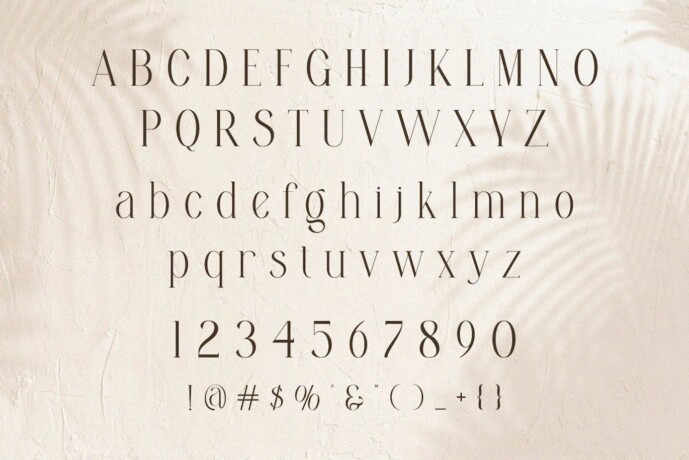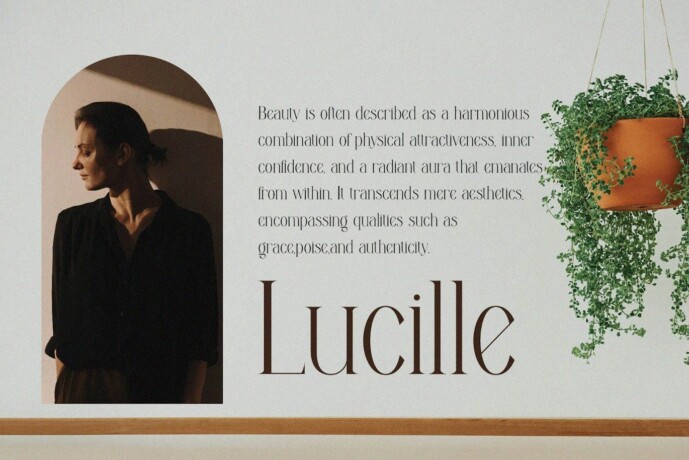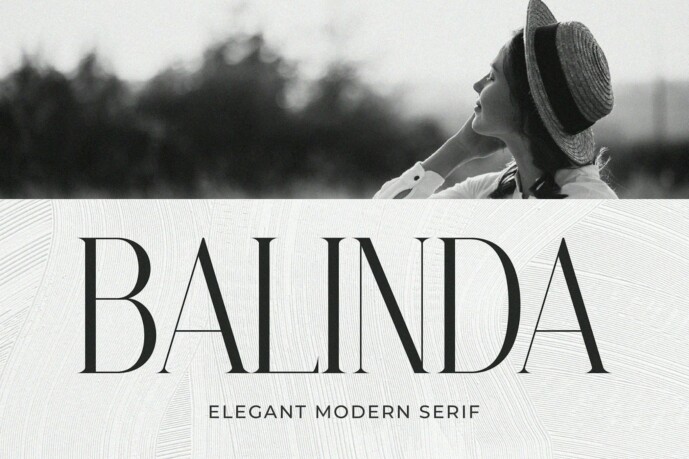
Balinda Serif Font
Designer: typeformers
Balinda Font is a stylish and elegant font ideal for displaying titles, logos, branding, magazines, product packaging and invitations.